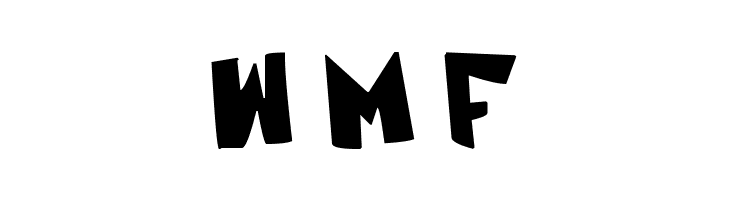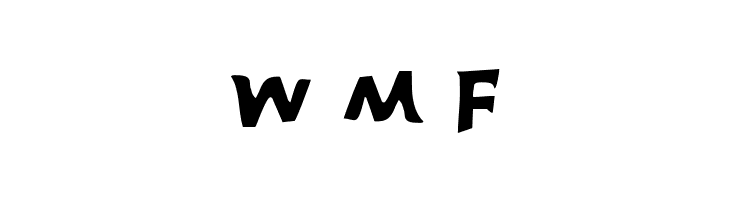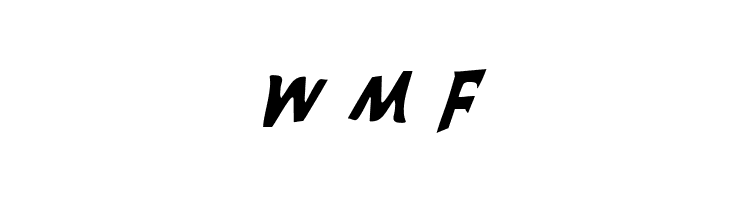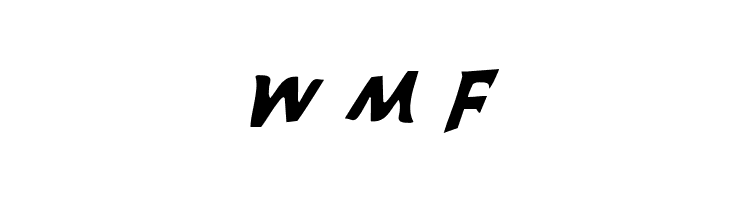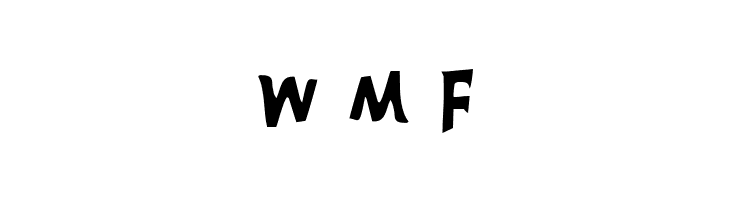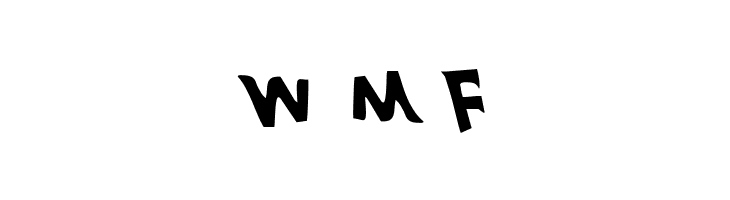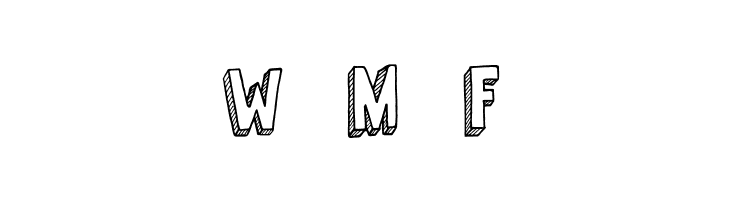
• 3-D Sketch Regular
A playful 3D sketch-style font with a hand-drawn, shadowed appearance.
• 30 Pack Girl Bold
A bold, playful font with dynamic, irregular strokes.
• 300 Trojans
A bold, angular font with a dynamic and powerful style.
• 300 Trojans Condensed
A bold, angular, and condensed font with a dynamic and historical flair.
• 300 Trojans Condensed Italic
A bold, condensed italic font with a modern and dynamic style.
• 300 Trojans Expanded
A bold, angular font with a geometric and historical flair.
• 300 Trojans Expanded Italic
A bold, italic font with a futuristic and dynamic style.
• 300 Trojans Greco
A bold, dynamic font with a three-dimensional effect, inspired by ancient inscriptions.
• 300 Trojans Italic
A bold, italic font with sharp angles and dynamic style.
• 300 Trojans Leftalic
A bold, italicized font with a playful and dynamic style.